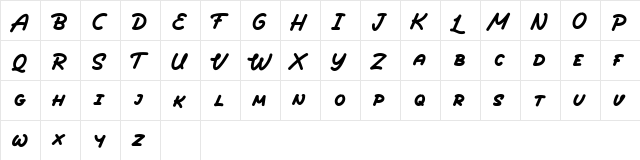
Bullhad Regular
| Foundry | susitype |
| Designer | Sibras Syahdan Brasto & Amir Subqi Setiaji |
Design Context for Bullhad Typeface
Bullhad is a composed and adaptable typeface that performs quietly and consistently across a wide range of design contexts.